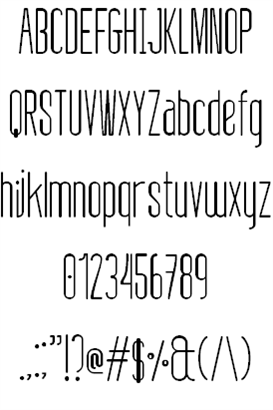
Free Linja Font
Featuring the adorable free linja font. Font Space has created this amazing and beautiful free font. Easily amaze your audience with this beautiful font and make your graphic designs pop up from the crowd.